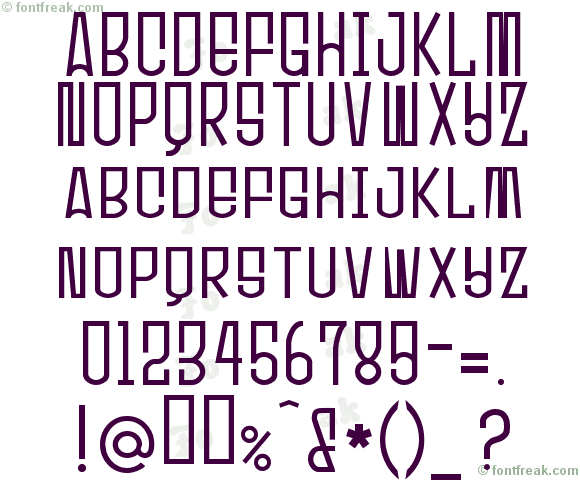
Ultrasonik
About Ultrasonik
The Ultrasonik font, designed by Pizzadude, is a striking display typeface that captures attention with its modern aesthetic. As a sans-serif font, Ultrasonik features clean lines and a bold presence, making it an ideal choice for a variety of design projects. Its unique visual characteristics include a consistent stroke weight that provides balance and legibility, while the geometric forms lend a contemporary feel. The slightly condensed spacing between letters enhances its readability, ensuring that it stands out without overwhelming the viewer.
This versatile font is perfect for several applications, including eye-catching movie posters, dynamic event flyers, and trendy branding for small businesses. Additionally, Ultrasonik works beautifully on social media graphics and website headers, making it a valuable asset for content creators looking to make a memorable impression. Its modern design appeals to graphic designers and small business owners aiming for a distinctive visual identity.
The target audience for Ultrasonik includes graphic designers, content creators, and small business owners who seek a font that combines style with functionality. The unique characteristics of this typeface allow it to convey a sense of innovation and creativity, which is essential in today’s competitive market.
What sets the Ultrasonik font apart is its ability to blend simplicity with uniqueness. While it is straightforward enough for various applications, its sharp angles and bold structure make it a standout choice for those looking to inject personality into their designs. With the Ultrasonik font free download available, designers can easily incorporate this exceptional typeface into their projects, enhancing their visual storytelling and overall aesthetic.